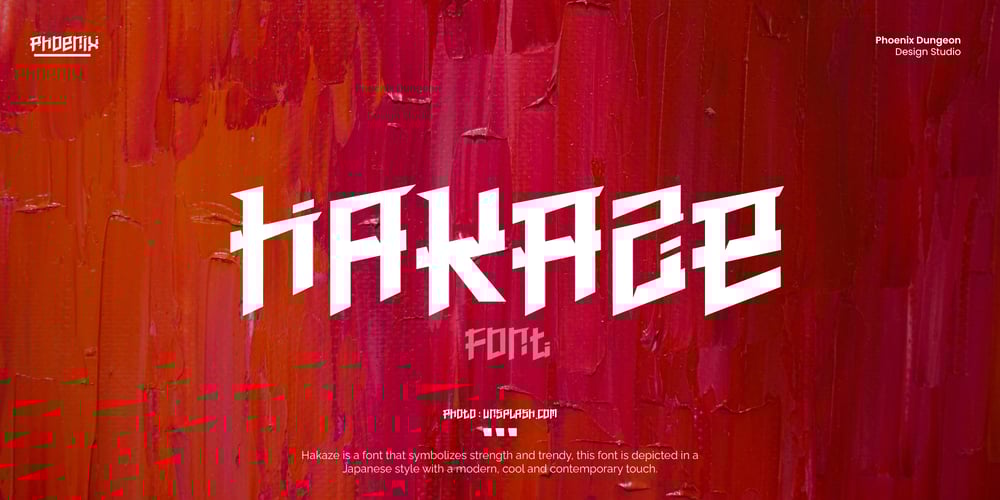
Hakaze
Hakaze font
Hakaze Font Family was designed by Alif Naufal Muzakki and published by Phoenix Group. Hakaze contains 1 styles and family package options. Hakaze is a font that symbolizes strength and is trendy, this font is depicted in a Japanese style with a modern, cool, and contemporary touch.